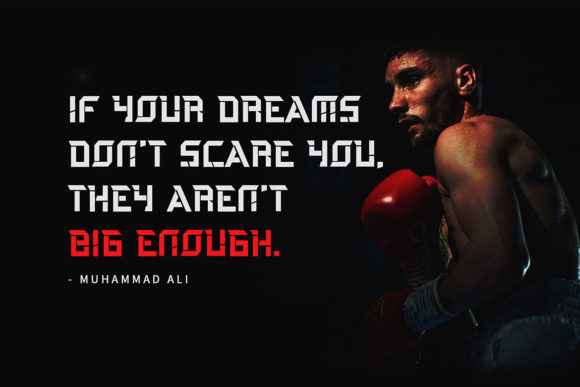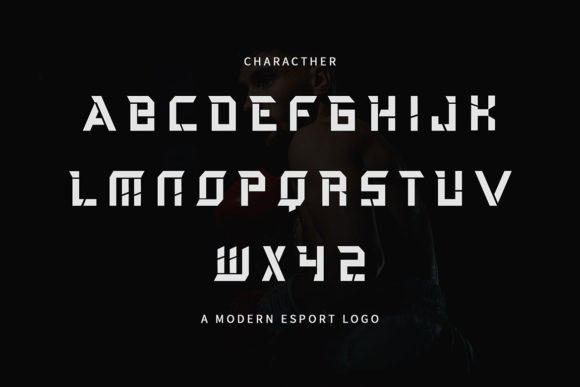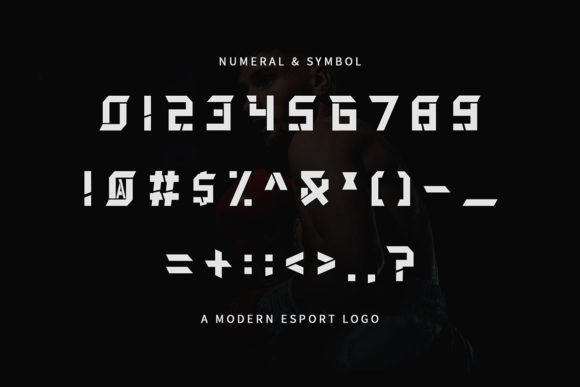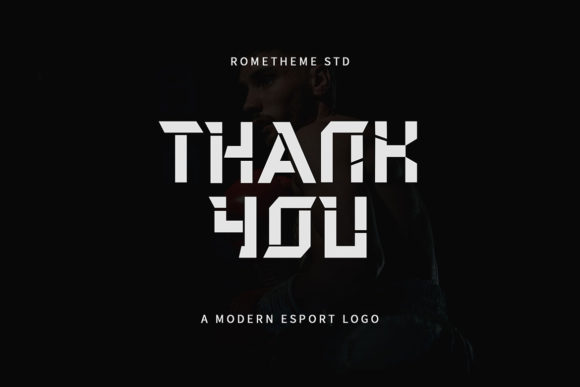
Introduction to Plaguard Font
Plaguard is a strong and futuristic display font.
It celebrates abstract shapes in all their eclectic beauty Add it o your designs and make them stand out.
Key Features of Plaguard Font